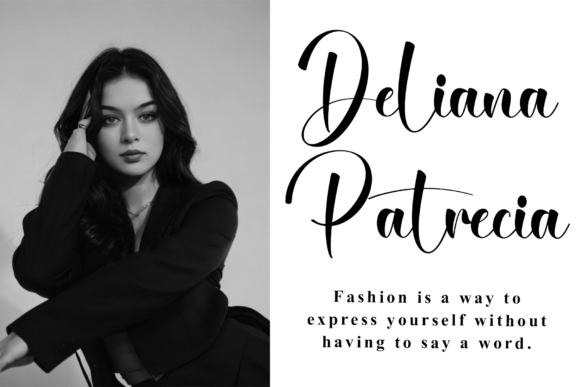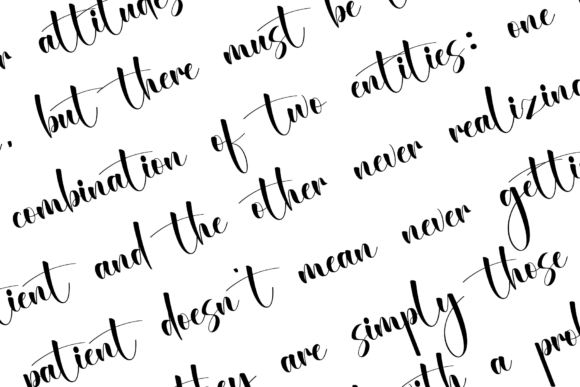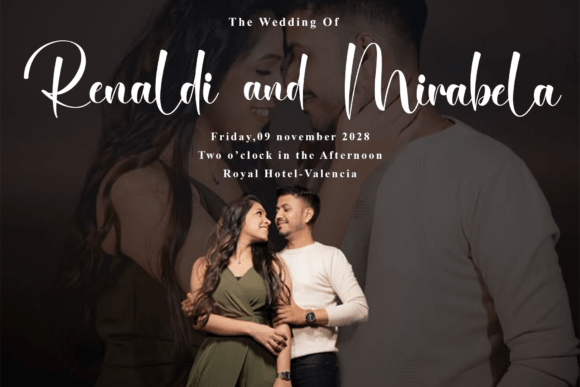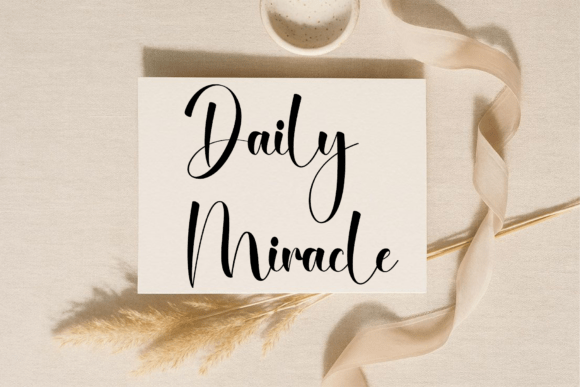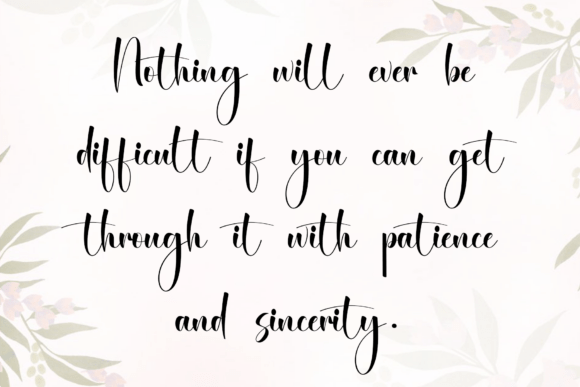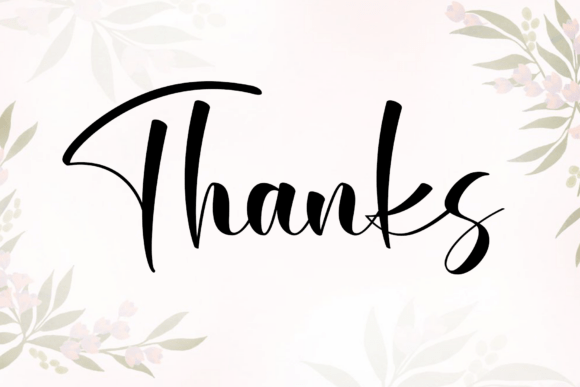
Diligent Font: Elevate Your Designs with Luxurious Handwritten Elegance
In the world of typography, few fonts manage to strike the perfect balance between modern sophistication and handwritten charm. Diligent Font is one such exceptional typeface that exudes elegance, confidence, and professionalism. With its smooth curves, high-contrast strokes, and graceful swashes, Diligent is the ideal choice for designers and crafters looking to add a touch of luxury to their projects.
The Essence of Diligent Font
Diligent is a luxurious and flowing handwritten script font that is designed to make a statement. Its unique blend of classic elegance and modern sophistication makes it perfect for upscale branding, wedding invitations, beauty packaging, and signature-style logos. The font’s smooth curves and high-contrast strokes give it a refined and polished look, while its graceful swashes add a touch of drama and flair.
Key Features of Diligent Font
- Luxurious and Elegant Design: Diligent Font boasts a sophisticated design that is perfect for high-end visual identities.
- Smooth Curves and High-Contrast Strokes: The font’s smooth curves and high-contrast strokes give it a refined and polished look.
- Graceful Swashes: The font’s swashes add a touch of drama and flair, making it perfect for headlines and titles.
Perfect for Upscale Designs
Diligent Font is the perfect choice for designers and crafters looking to create upscale designs that exude elegance and sophistication. Its luxurious and flowing handwritten script makes it ideal for:
- Wedding Invitations: Add a touch of elegance and romance to your wedding invitations with Diligent Font.
- Beauty Packaging: Elevate your beauty packaging with Diligent Font’s luxurious and sophisticated design.
- Upscale Branding: Create a high-end visual identity with Diligent Font’s elegant and refined design.
- Signature-Style Logos: Create a unique and memorable logo with Diligent Font’s flowing handwritten script.
Why Choose Diligent Font?
With so many fonts available, why choose Diligent Font? Here are just a few reasons why Diligent Font stands out from the rest:
- Unique and Elegant Design: Diligent Font’s luxurious and flowing handwritten script makes it a unique and elegant choice for designers and crafters.
- High-Quality Typography: The font is designed with high-quality typography in mind, ensuring that your designs look refined and polished.
In conclusion, Diligent Font is a luxurious and elegant handwritten script font that is perfect for designers and crafters looking to add a touch of sophistication to their designs. With its smooth curves, high-contrast strokes, and graceful swashes, Diligent Font is the ideal choice for upscale branding, wedding invitations, beauty packaging, and signature-style logos. Its PUA-encoded design and multilingual support make it a versatile and practical choice for designers and crafters worldwide.